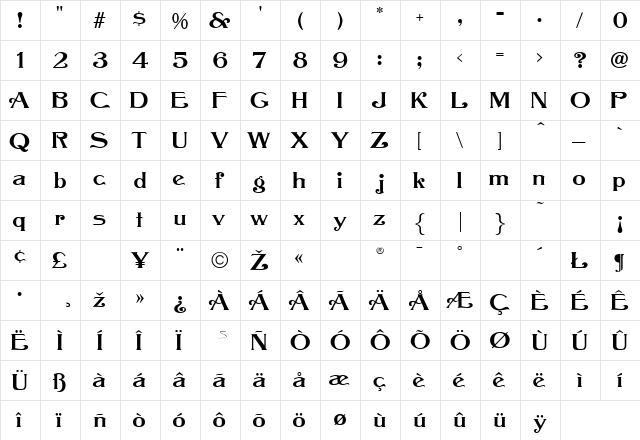
Orbit Antique Regular
Design Context for Orbit Antique Typeface
Orbit Antique wears its vintage influences proudly, with letterforms that recall mid-century signage, classic packaging, and nostalgia-driven design.
Font Pairing: Combine Orbit Antique with a simple slab or neutral sans — period-accurate companions reinforce the vintage feel without competing for attention.
Pro Tip: Use Orbit Antique for headlines and pull quotes rather than body copy — its personality is best appreciated in short, focused bursts.